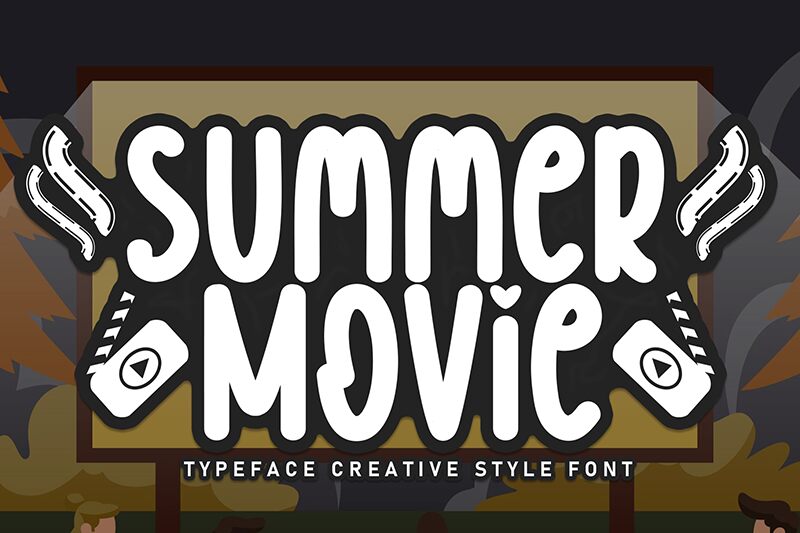
Summer Movie
Summer Movie font by Scratchones is a handwritten, condensed typeface with a casual and inviting character. With smooth-flowing lines and gentle curves, the overall look of this wonderful small font is complete, perfect for any design that seeks a charming yet strong personality.
A free motivational font that’ll impress whoever receives your logo designs, slogans, ads or promotions as well as cards of all types. Summer Movie can also be used for brochures, magazines headlines typography or layouts in general.